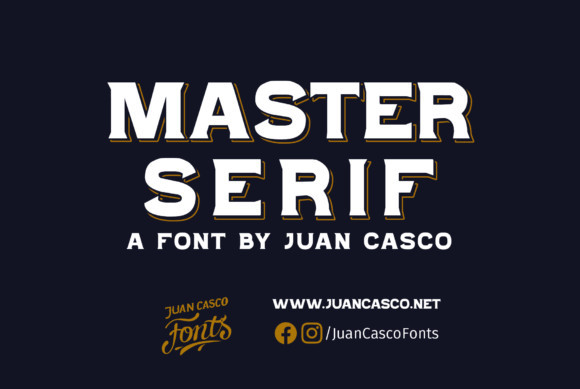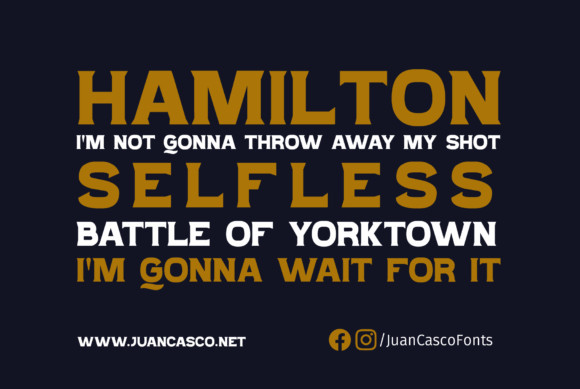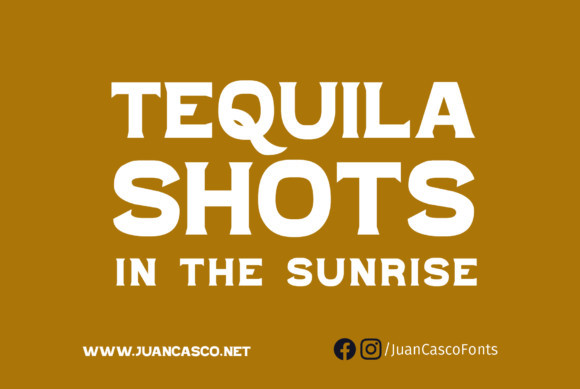
Master Serif Font
Master Serif feels playfully nostalgic and delivers an incredible vintage aesthetic. Use this serif font to add that special retro touch to any design idea you can think of!